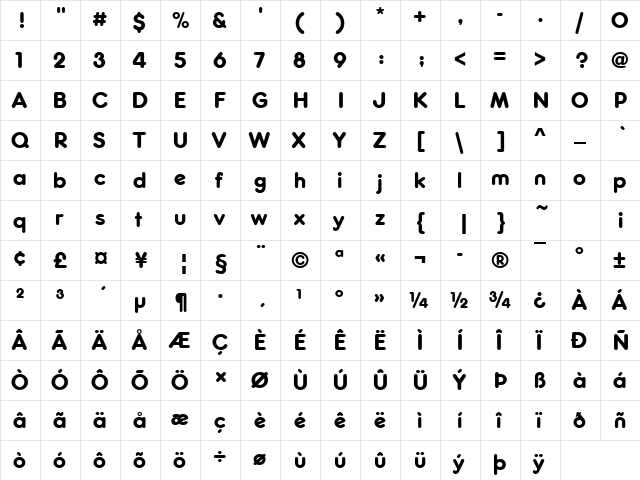
FrankfurterDMed Regular
Design Context for FrankfurterDMed Typeface
FrankfurterDMed offers clean, dependable letterforms without strong stylistic allegiance, making it a practical choice for designers who need flexibility.